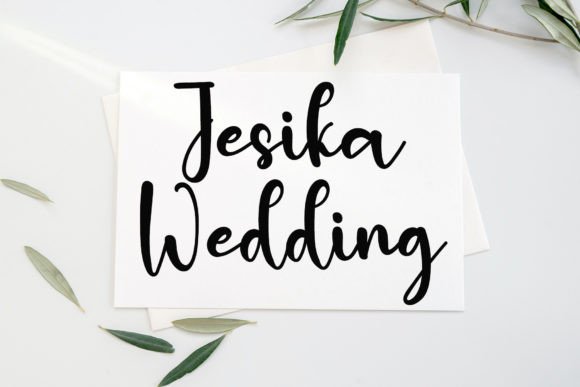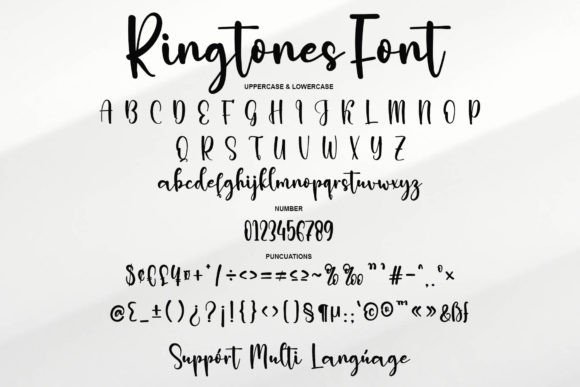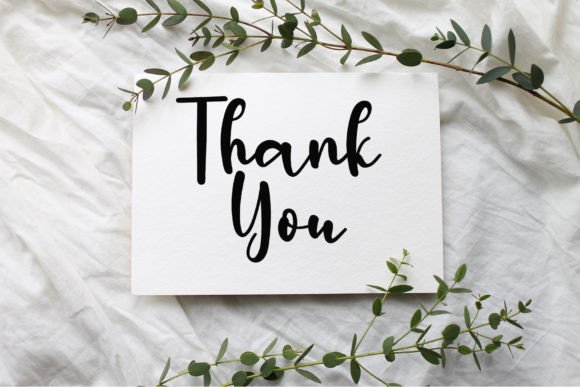
Introduction to Ringtones Font
Have you ever been in the middle of a creative project, and the perfect font just slipped through your fingers? You envision the design, the color palette, and the message, but the font is the missing piece that brings it all together. For designers, finding the right font can make all the difference between a mediocre design and a masterpiece.
That’s where the Ringtones Font comes in – a beautiful and refined handwritten font that exudes class and modernity. With its versatility, it’s perfect for logos, branding, invitations, stationery, wedding designs, social media posts, and much more. Whether you’re working on a high-profile project or a personal creative endeavor, the Ringtones Font is an invaluable design resource that can elevate your work to the next level.
Ringtones Font
Honest Review: Ringtones Font
I recently had the chance to work with the Ringtones Font, and I must say it was a great addition to my creative project. The font’s unique design and high-quality details made it perfect for a modern and sleek aesthetic.
Here are some of the things that worked well for me:
- High-quality design: The Ringtones Font has a crisp and clean look that’s perfect for any design project.
- Limited character set: The font only includes a limited character set, which can be a problem for longer text-based projects.
- No bold or italic styles: While the font is great for regular text, it would be nice to have bold or italic styles for emphasis.
Overall, I was impressed with the Ringtones Font and would recommend it as a design resource for any creative project. Its high-quality design and free download make it a great value, and its transparent background makes it easy to work with. However, the limited character set and lack of bold or italic styles are limitations to be aware of.
Tips for Getting the Most Out of Ringtones Font
The Ringtones Font is perfect for a variety of creative projects, including logos, icons, graphics, and even print materials like business cards or brochures. It’s also great for digital projects like social media graphics, presentations, and websites.